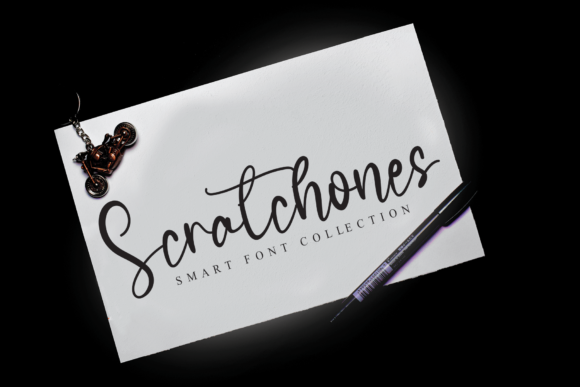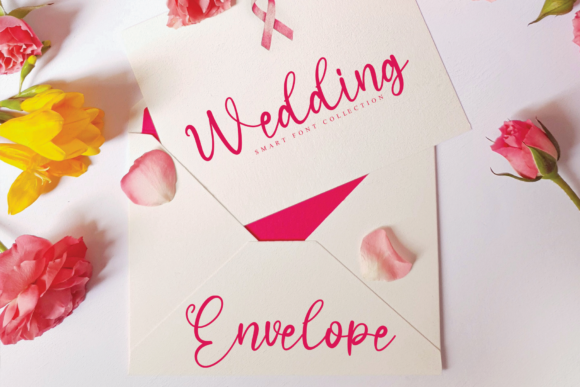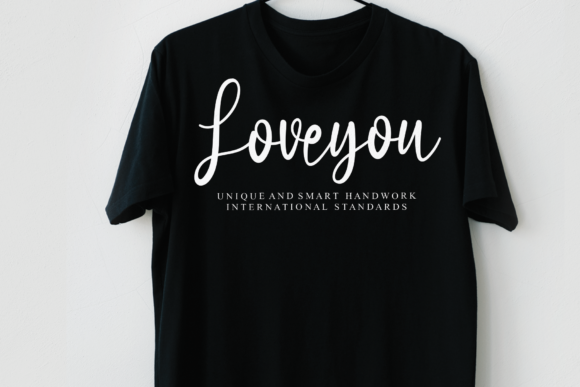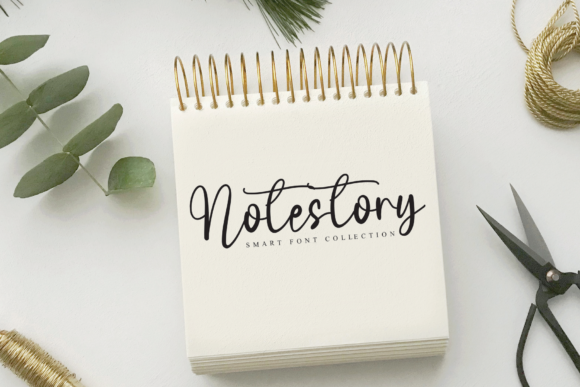
Discover the Elegance of Augusta Font: A Delicate and Cursive Script Font
Are you a designer or crafter looking for a font that can elevate your creations to the next level? Look no further than the Augusta font, a delicate and cursive script font that is sure to become a valuable asset in your font library. With its neat and highly detailed craftsmanship, Augusta is the perfect choice for a wide range of design projects, from elegant wedding invitations to sophisticated branding and packaging.
The Characteristics of Augusta Font
Augusta is a beautifully crafted font that boasts a range of characteristics that make it stand out from other script fonts. Its delicate and cursive design gives it a touch of elegance and sophistication, making it perfect for designs that require a high level of refinement. The font is highly detailed, with intricate swashes and flourishes that add to its beauty and charm.
What Makes Augusta Font So Versatile?
One of the things that makes Augusta font so versatile is its ability to work well with a wide range of topics and themes. Whether you’re designing a wedding invitation, a logo for a luxury brand, or a craft project, Augusta font is sure to be a great choice. Its elegant and sophisticated design makes it perfect for projects that require a high level of refinement, while its delicate and cursive script makes it suitable for more creative and playful designs.
The Benefits of Using Augusta Font
There are many benefits to using Augusta font in your designs. Here are just a few:
- Elegance and Sophistication: Augusta font adds a touch of elegance and sophistication to any design, making it perfect for projects that require a high level of refinement.
- Versatility: Augusta font is highly versatile and can be used for a wide range of design projects, from wedding invitations to branding and packaging.
- Attention to Detail: The font’s intricate swashes and flourishes add a level of detail and craftsmanship to any design.
- Easy to Read: Despite its delicate and cursive design, Augusta font is easy to read and understand, making it perfect for body text and other long-form content.
How to Use Augusta Font in Your Designs
Using Augusta font in your designs is easy. Here are a few tips to get you started:
- Pair it with a Bold Font: Pair Augusta font with a bold font to create a striking contrast and add visual interest to your design.
- Use it for Headings and Titles: Augusta font is perfect for headings and titles, where its elegant and sophisticated design can really shine.
- Add Swashes and Flourishes: Take advantage of Augusta font’s intricate swashes and flourishes to add a touch of elegance and sophistication to your design.
In conclusion, Augusta font is a delicate and cursive script font that is sure to become a valuable asset in your font library. With its elegant and sophisticated design, highly detailed craftsmanship, and versatility, Augusta font is perfect for a wide range of design projects. Whether you’re a designer or crafter, Augusta font is a great choice for anyone looking to add a touch of elegance and sophistication to their creations.
Here are a few final tips for designers and crafters looking to get the most out of Augusta font:
- Experiment with Different Sizes and Styles: Don’t be afraid to experiment with different sizes and styles of Augusta font to find the one that works best for your design.
- Use it in Combination with Other Fonts: Augusta font pairs well with a wide range of other fonts, so don’t be afraid to experiment with different combinations.
- Pay Attention to Kerning and Spacing: Pay attention to kerning and spacing to ensure that your text looks professional and polished.